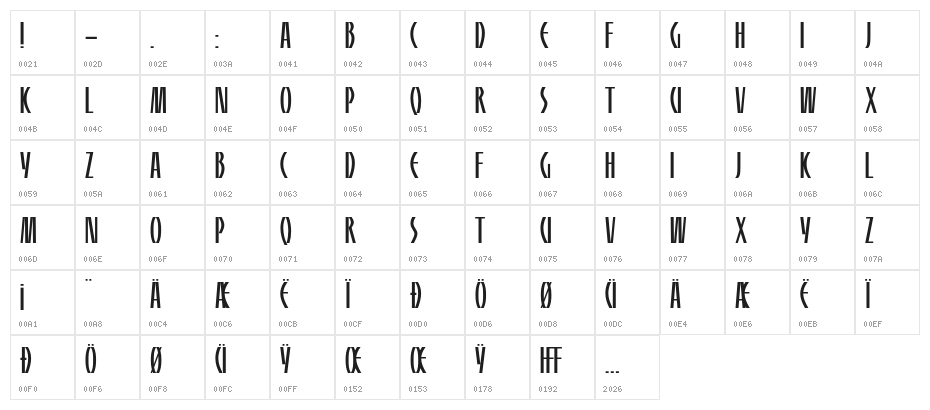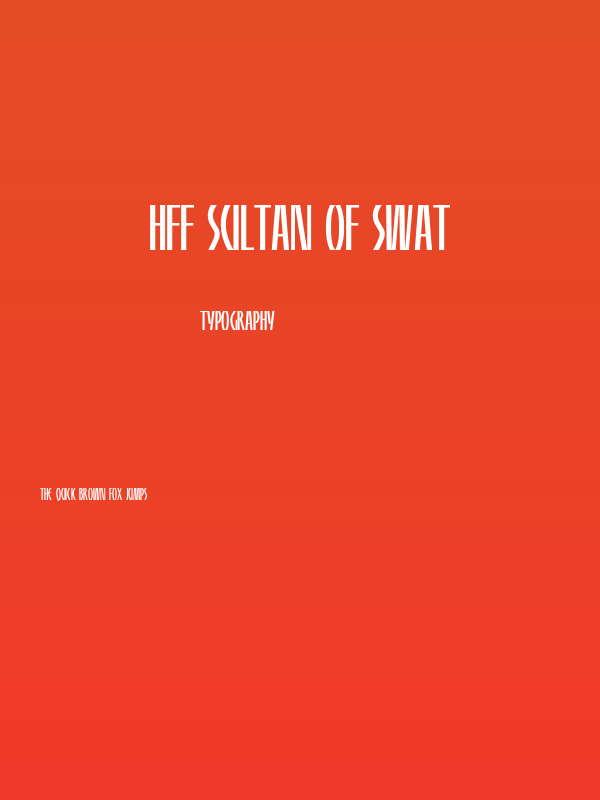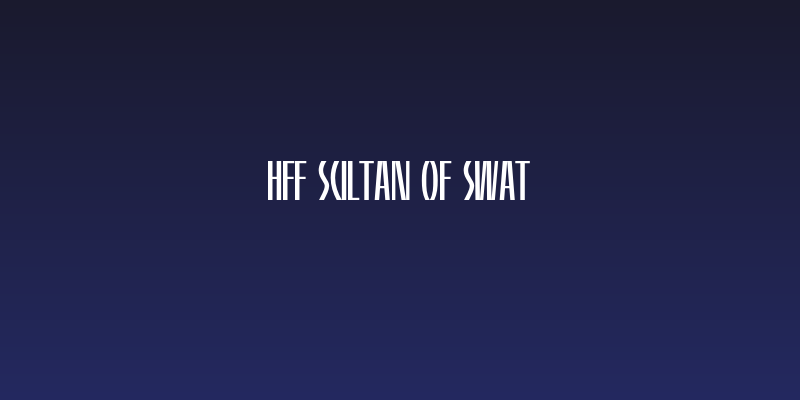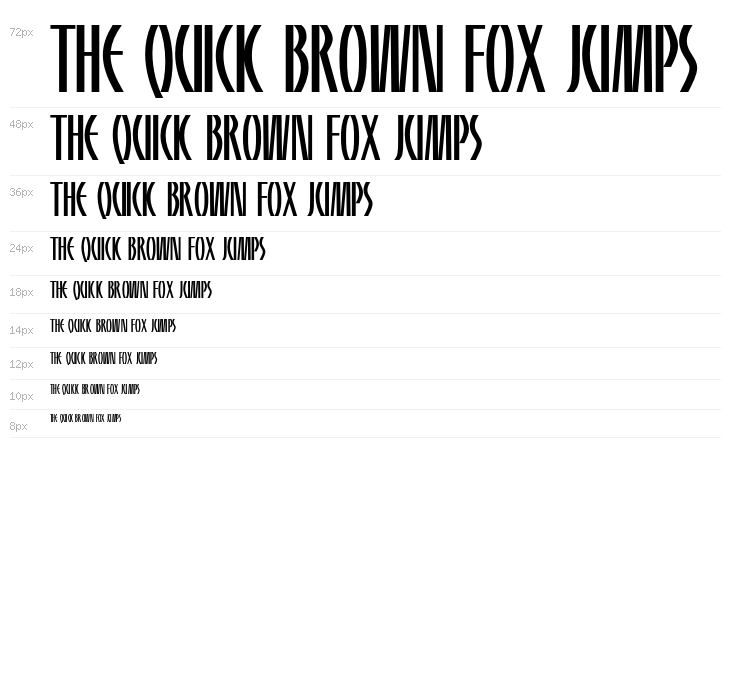
HFF Sultan of Swat Font
✎ Art Deco
HFF Sultan of Swat Description
This font features a bold and striking design with elongated, narrow characters that create a dramatic visual impact. The letters are tall and condensed, with sharp angles and a high contrast between thick and thin strokes, giving it a distinct Art Deco feel. The uppercase letters are particularly prominent, with a unique geometric style that emphasizes verticality. The font's overall appearance is both modern and vintage, making it versatile for various design projects. The limited set of punctuation marks, including an exclamation point and period, complements the bold letterforms.
| Overall Style | Vintage, Modern |
| Proposed Projects | Ideal for posters, headlines, branding, and any project requiring a vintage yet modern aesthetic. |